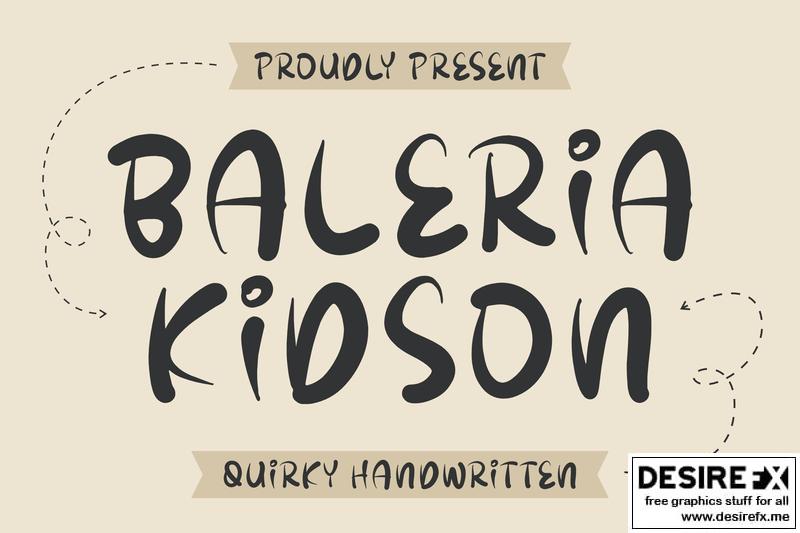
Baleria Kidson Quirky Handwritten Font EGR27SL
Hi ladies & gentlemen, this is one of our fonts suitable to complement your digital and printed creative products.
This font is perfect for posters, social media posts, branding, personal projects, etc.